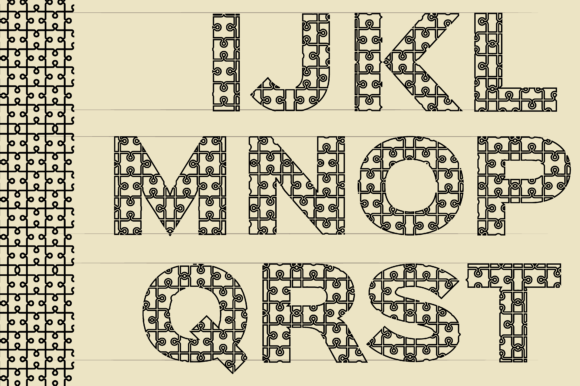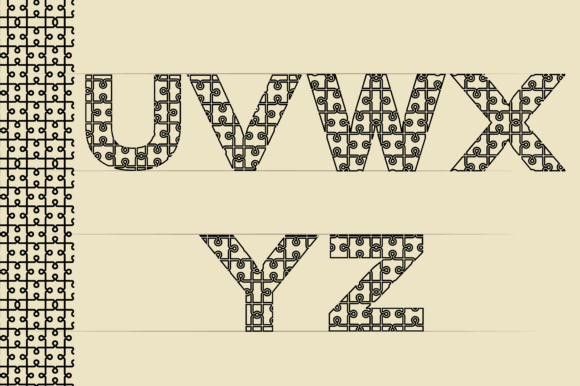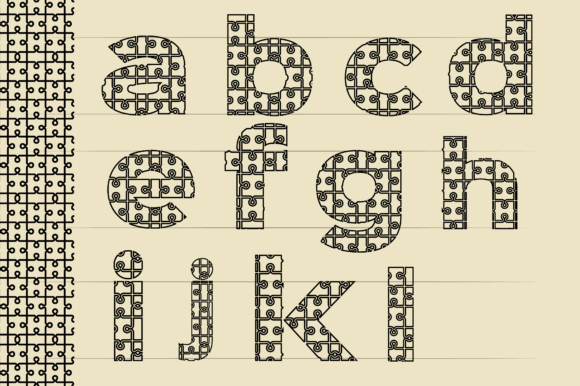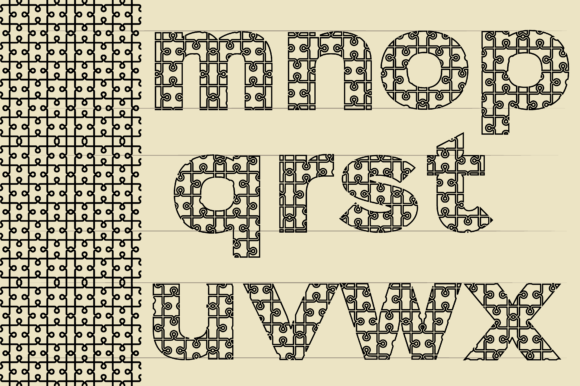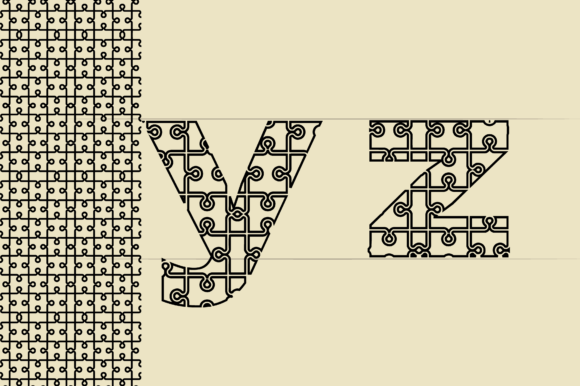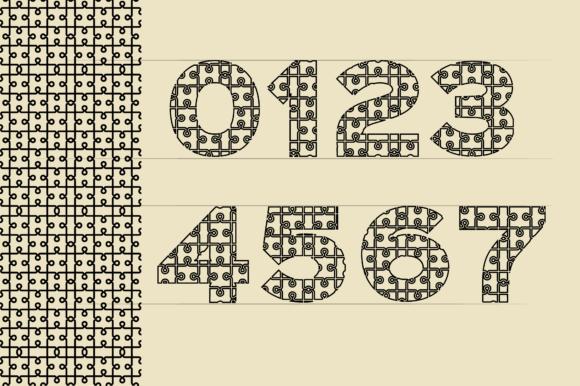
Introduction to Jigsaw Pattern Lettering Font
Jigsaw Pattern Lettering is a beautiful decorative font perfect for any design you wish to create.
Add it with confidence to your next creative project, and be astonished by its powerful effect .
Key Features of Jigsaw Pattern Lettering Font
Why Choose Jigsaw Pattern Lettering Font?
Jigsaw Pattern Lettering Font offers exceptional quality and versatility, making it a valuable addition to your design toolkit. Whether you’re creating for personal projects or commercial use, Jigsaw Pattern Lettering Font delivers professional results.